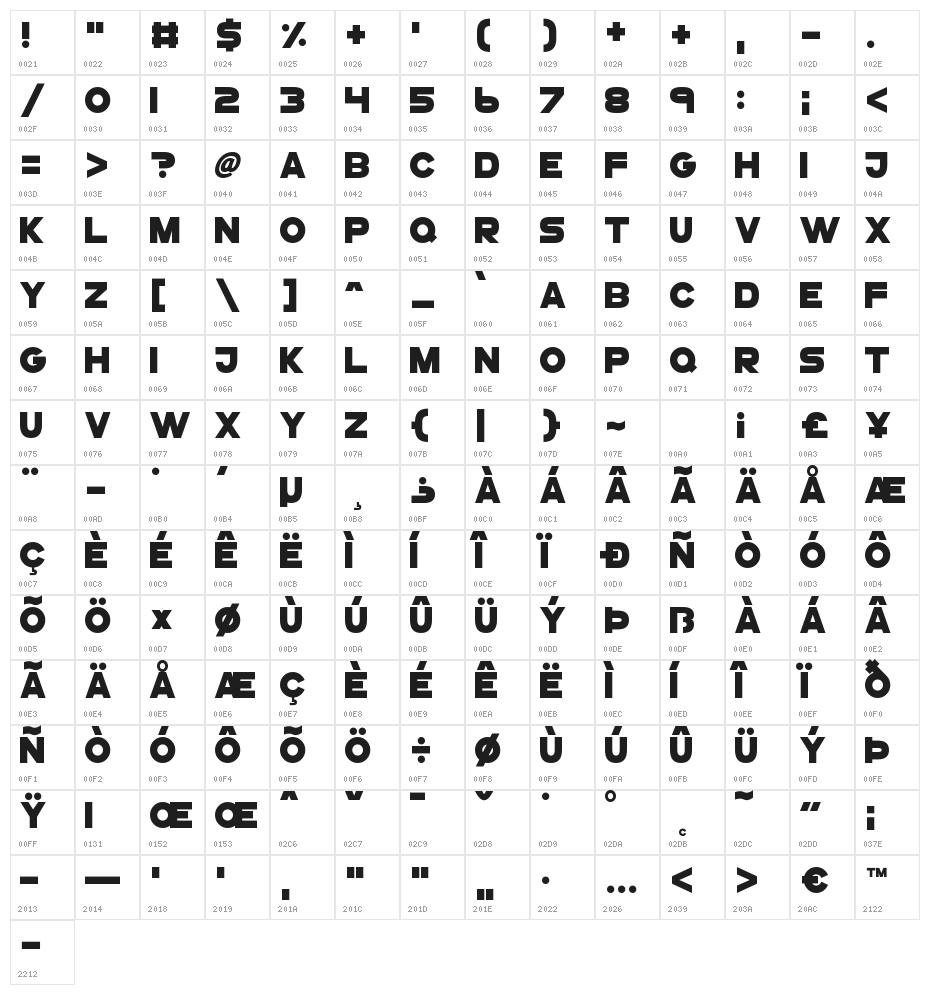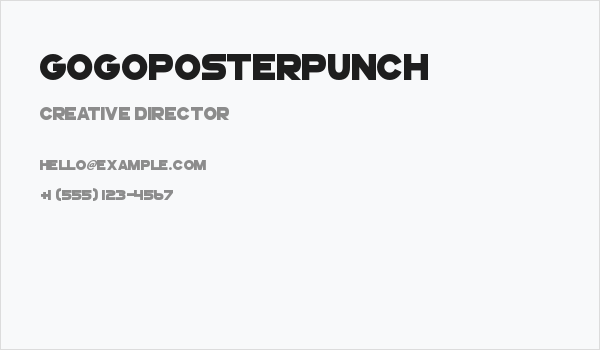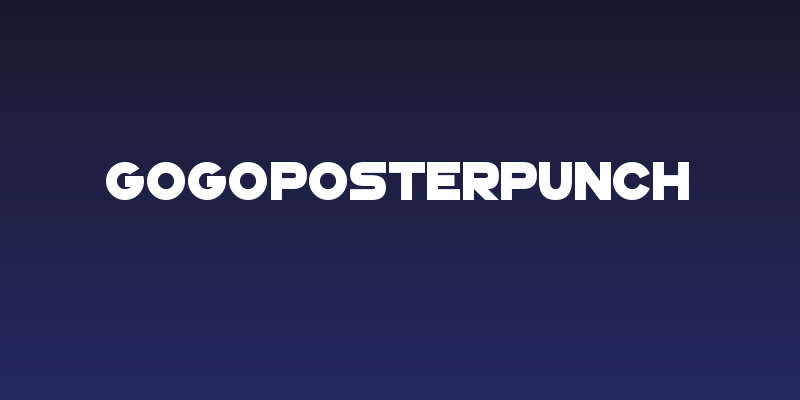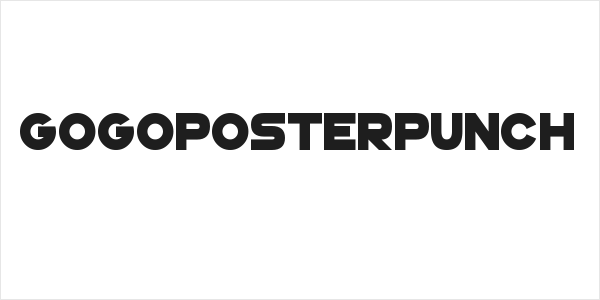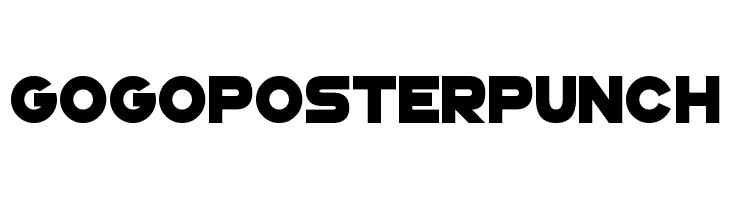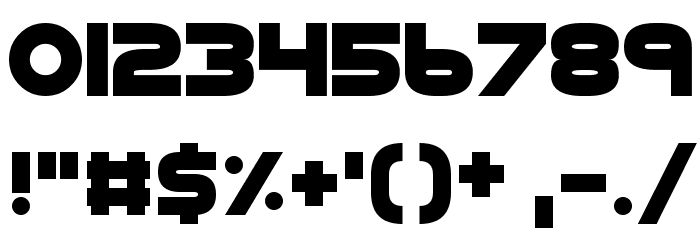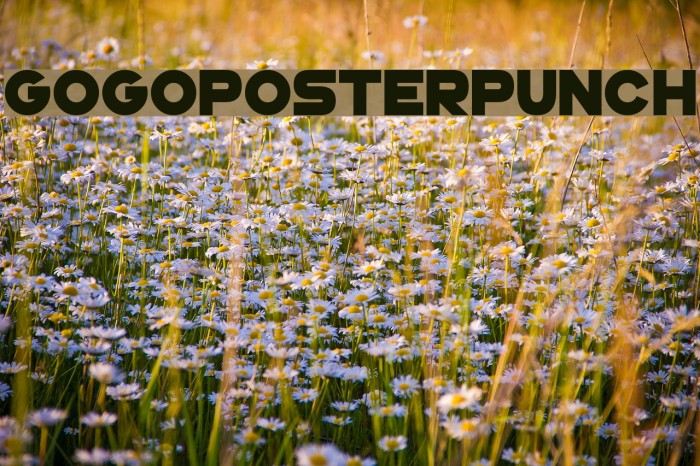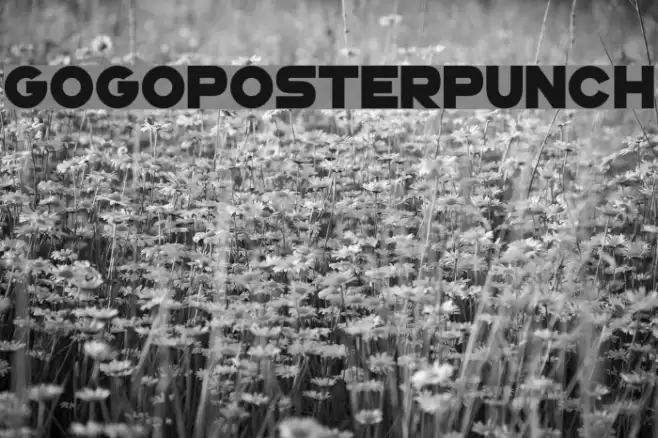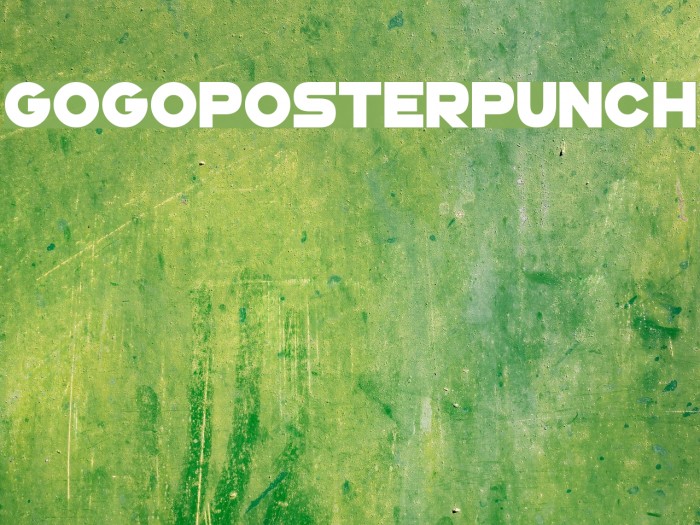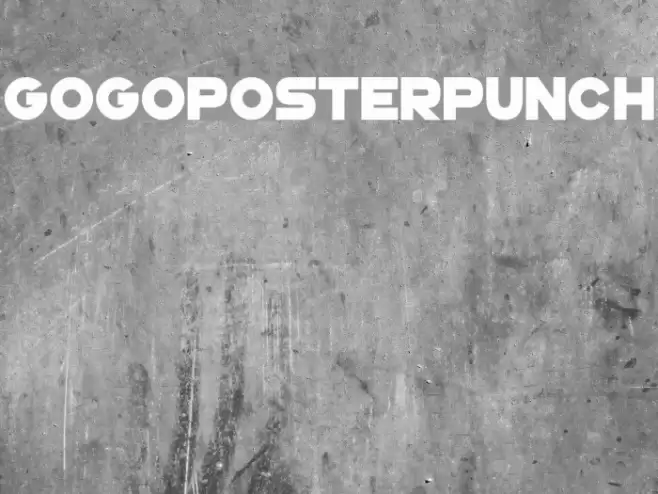
GoGoPosterPunch Font
GoGoPosterPunch Description
This font features bold, geometric letterforms with a strong, impactful presence. The characters are constructed with thick strokes and sharp angles, creating a sense of power and modernity. The uppercase and lowercase letters maintain a consistent weight and style, emphasizing uniformity and balance. The numerals and special characters follow the same design principles, ensuring a cohesive look across all glyphs. The font's design is reminiscent of industrial and futuristic aesthetics, making it suitable for projects that require a bold statement.
| Proposed Projects | Ideal for posters, headlines, branding, and any design needing a bold, modern touch. |